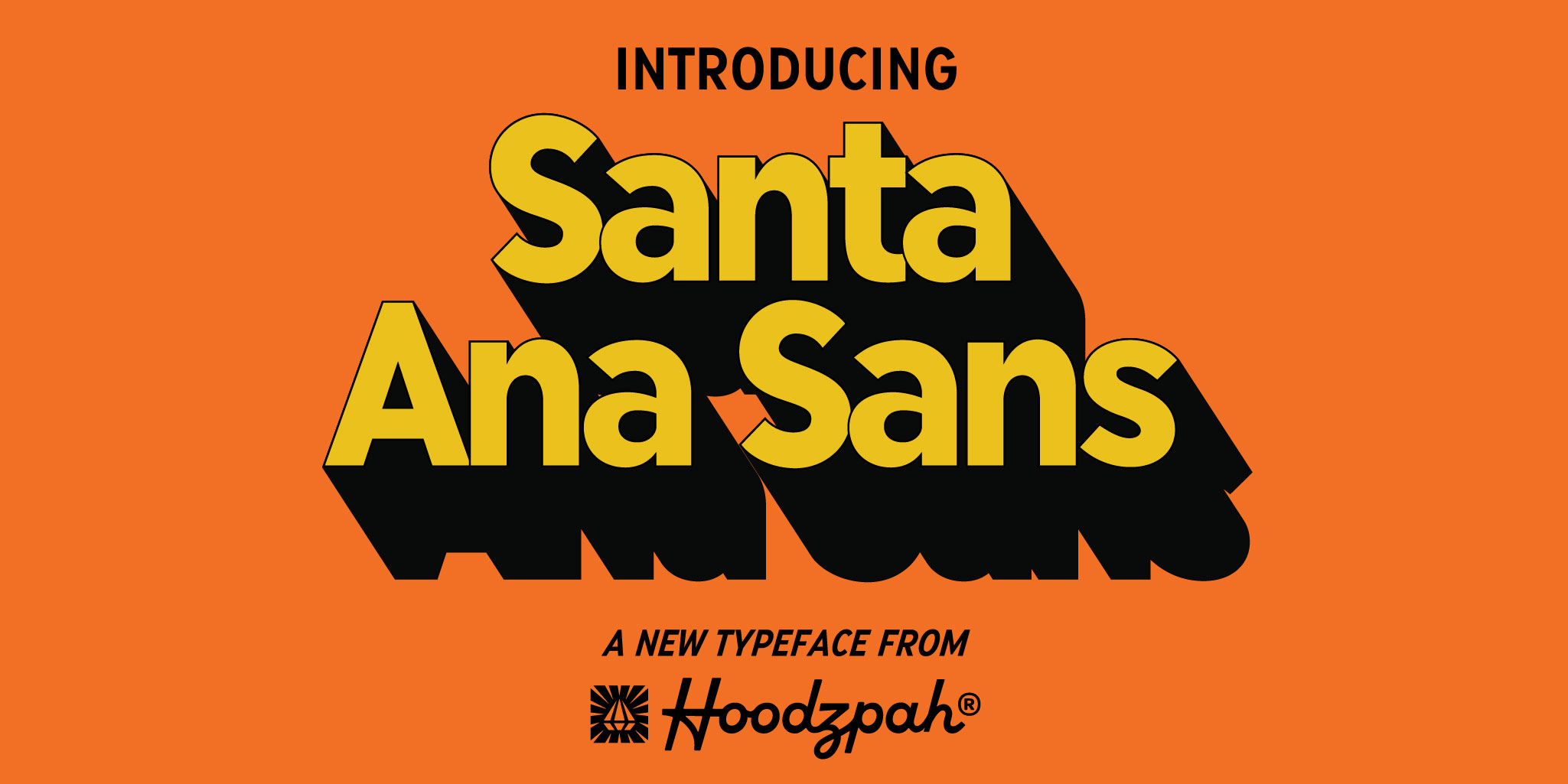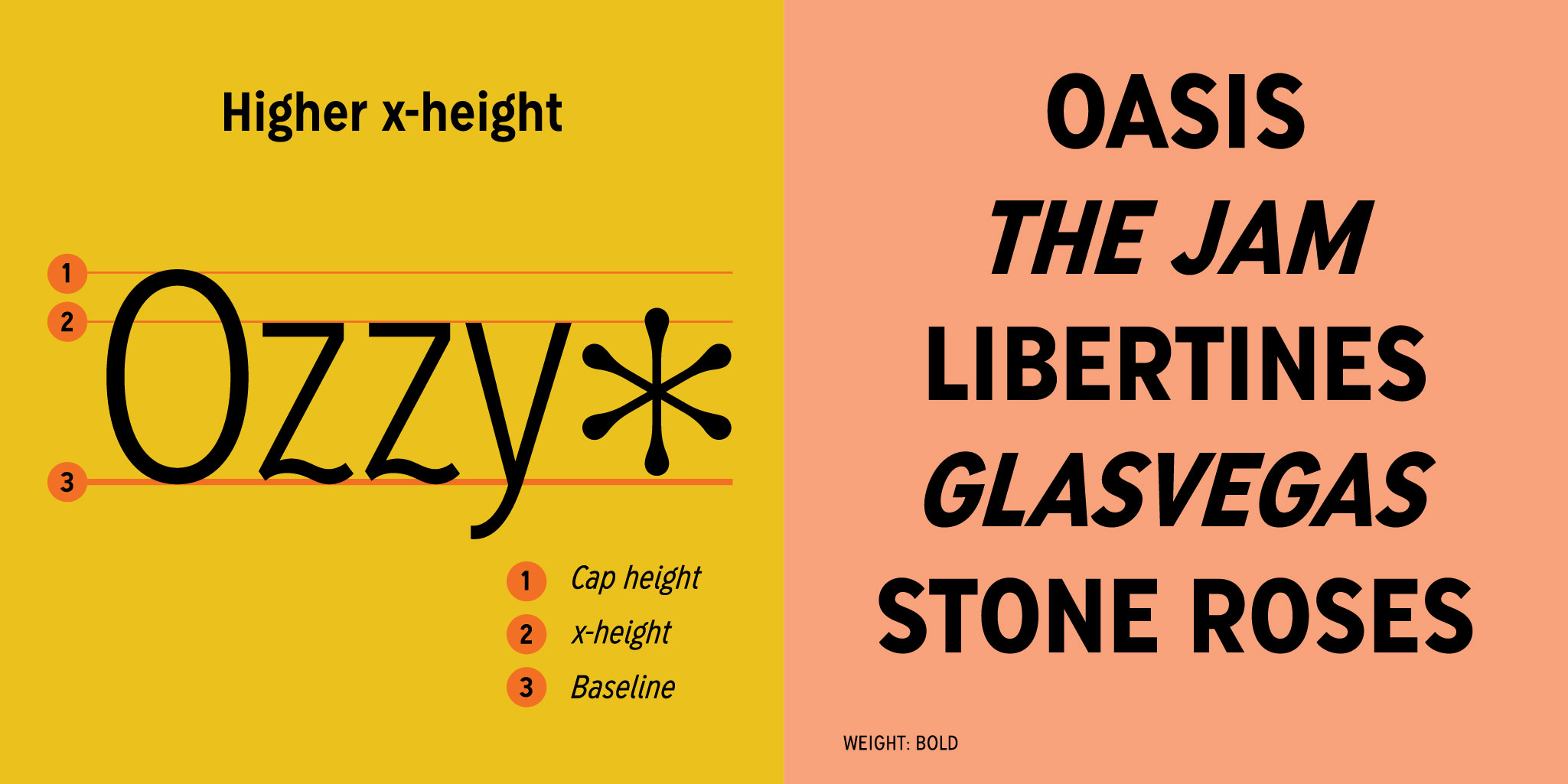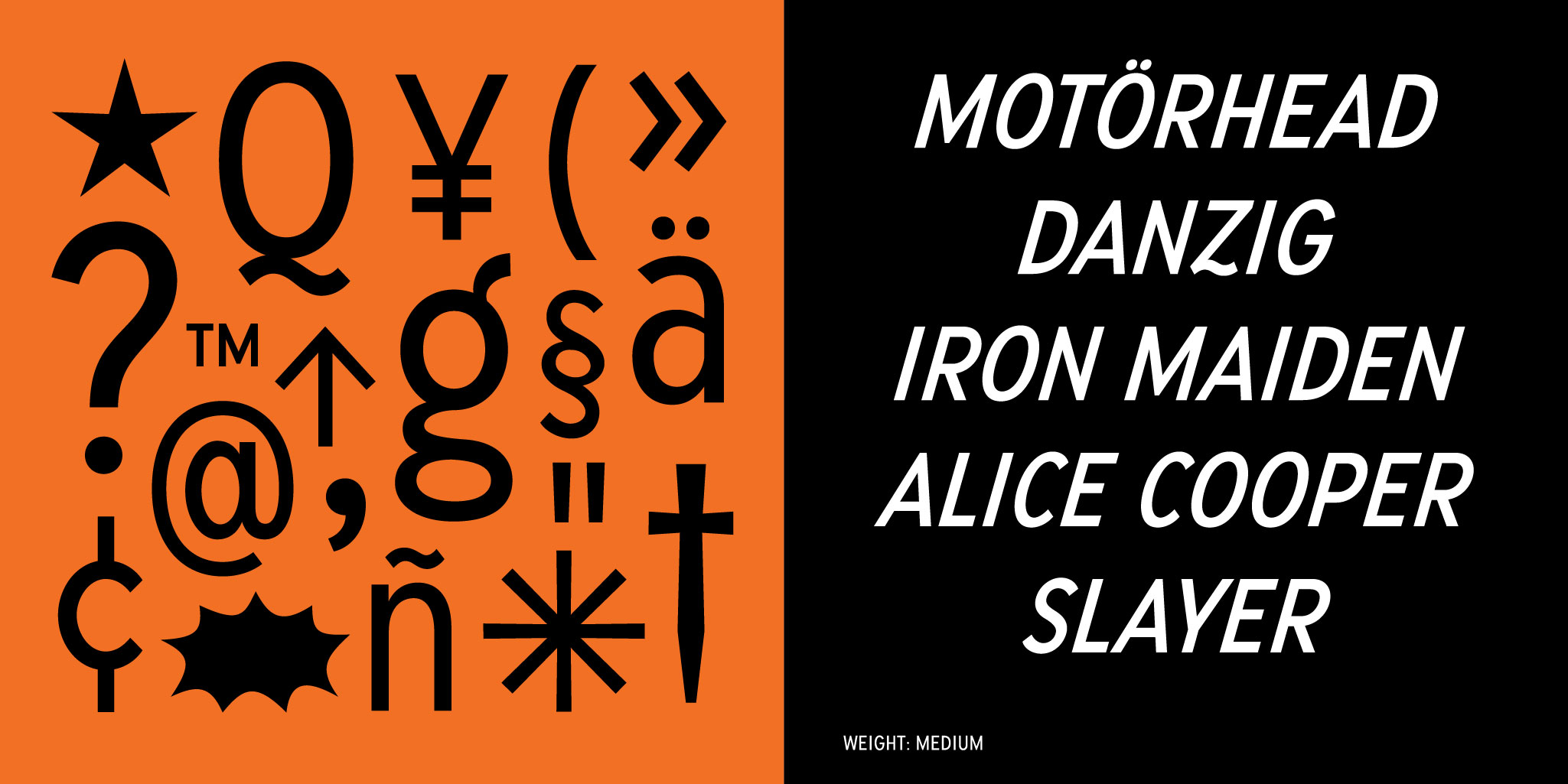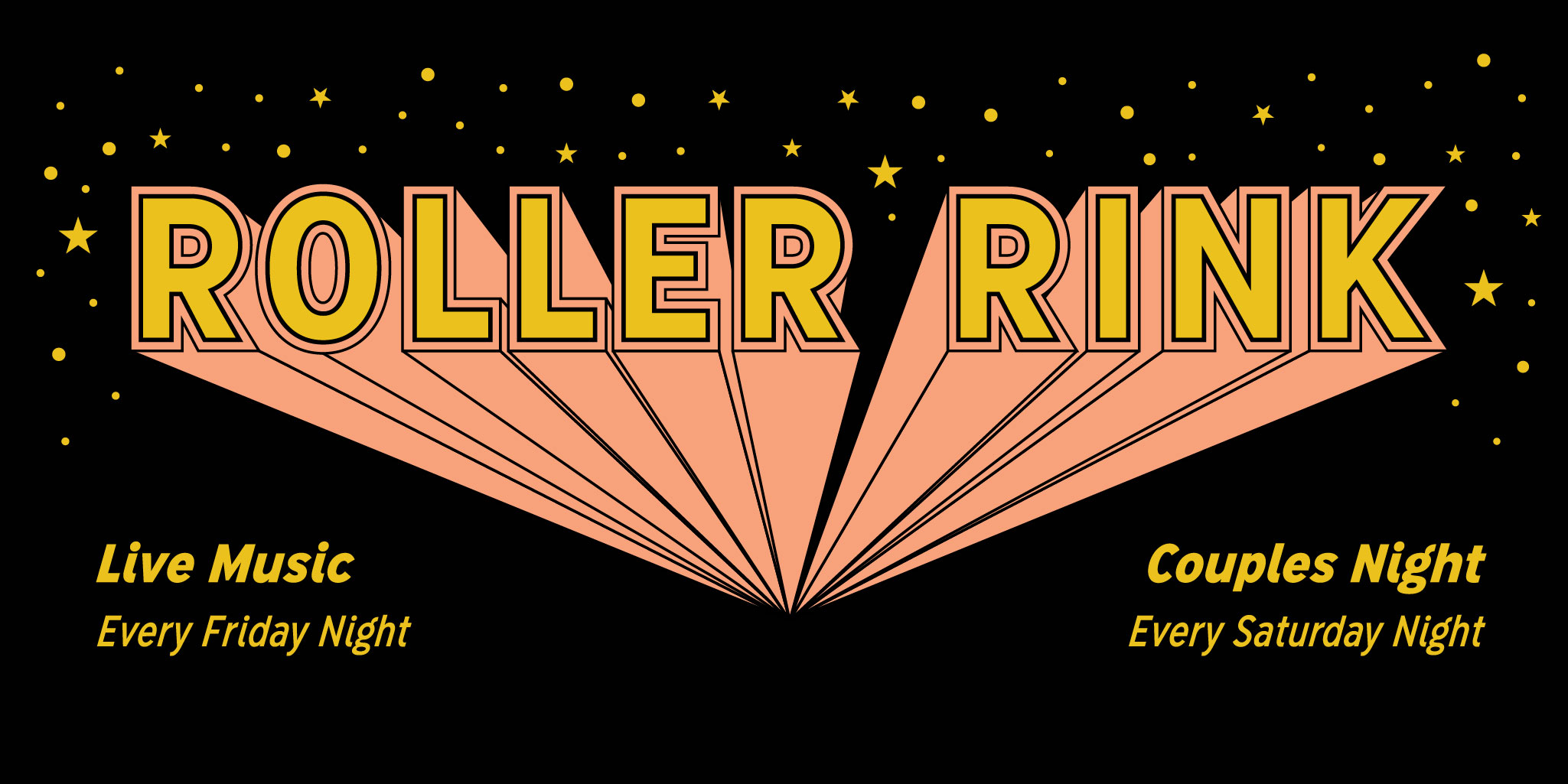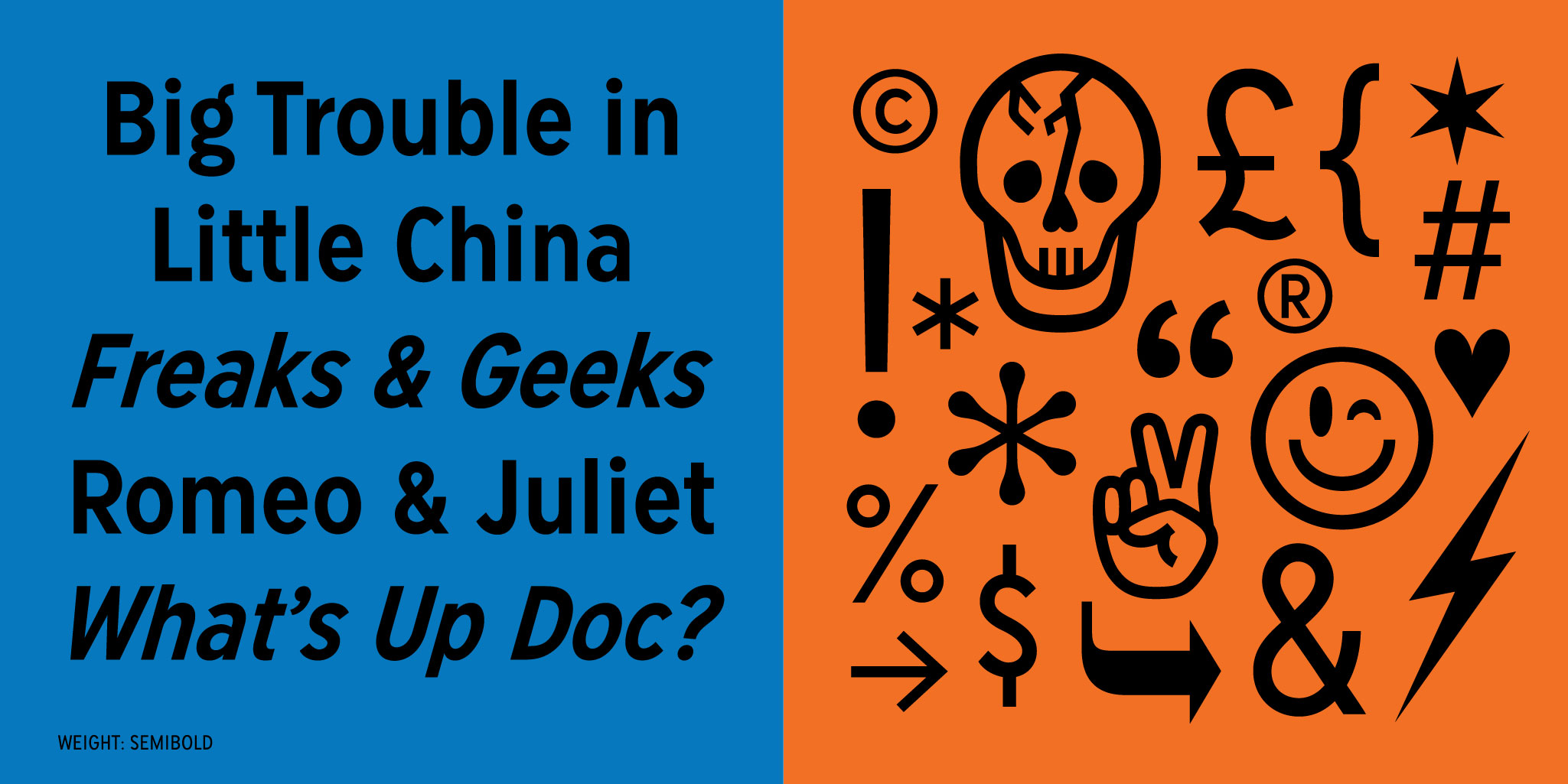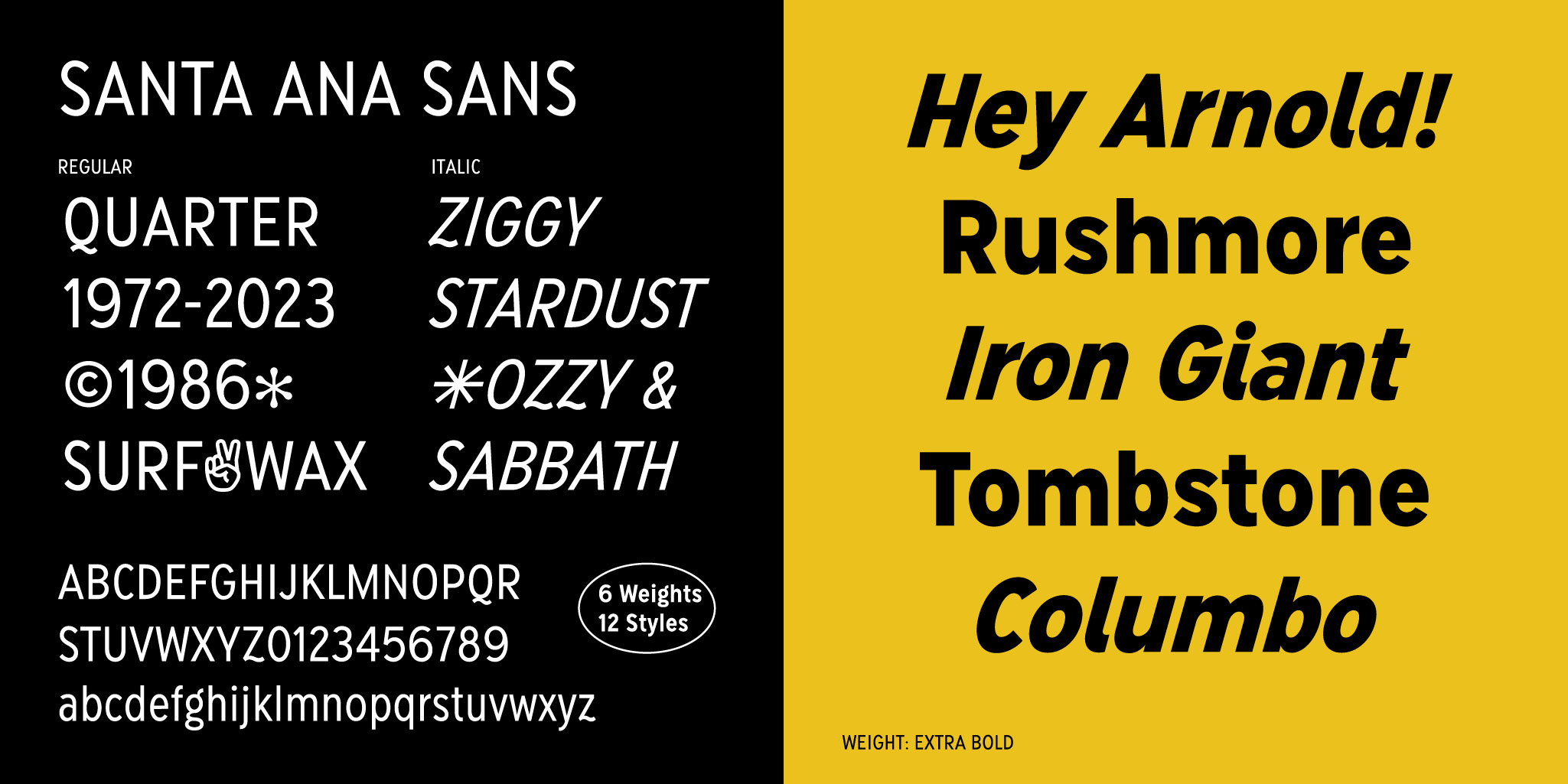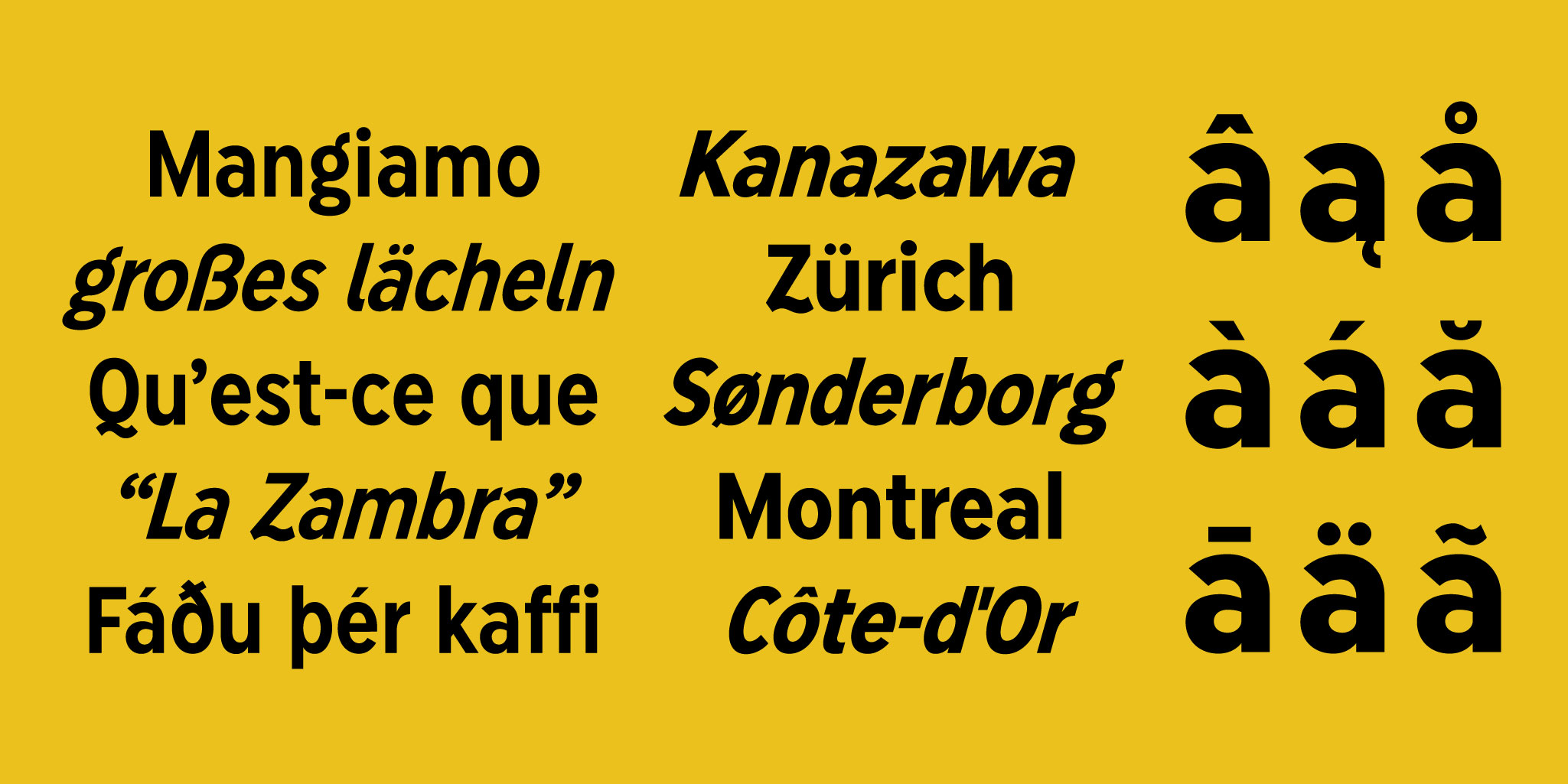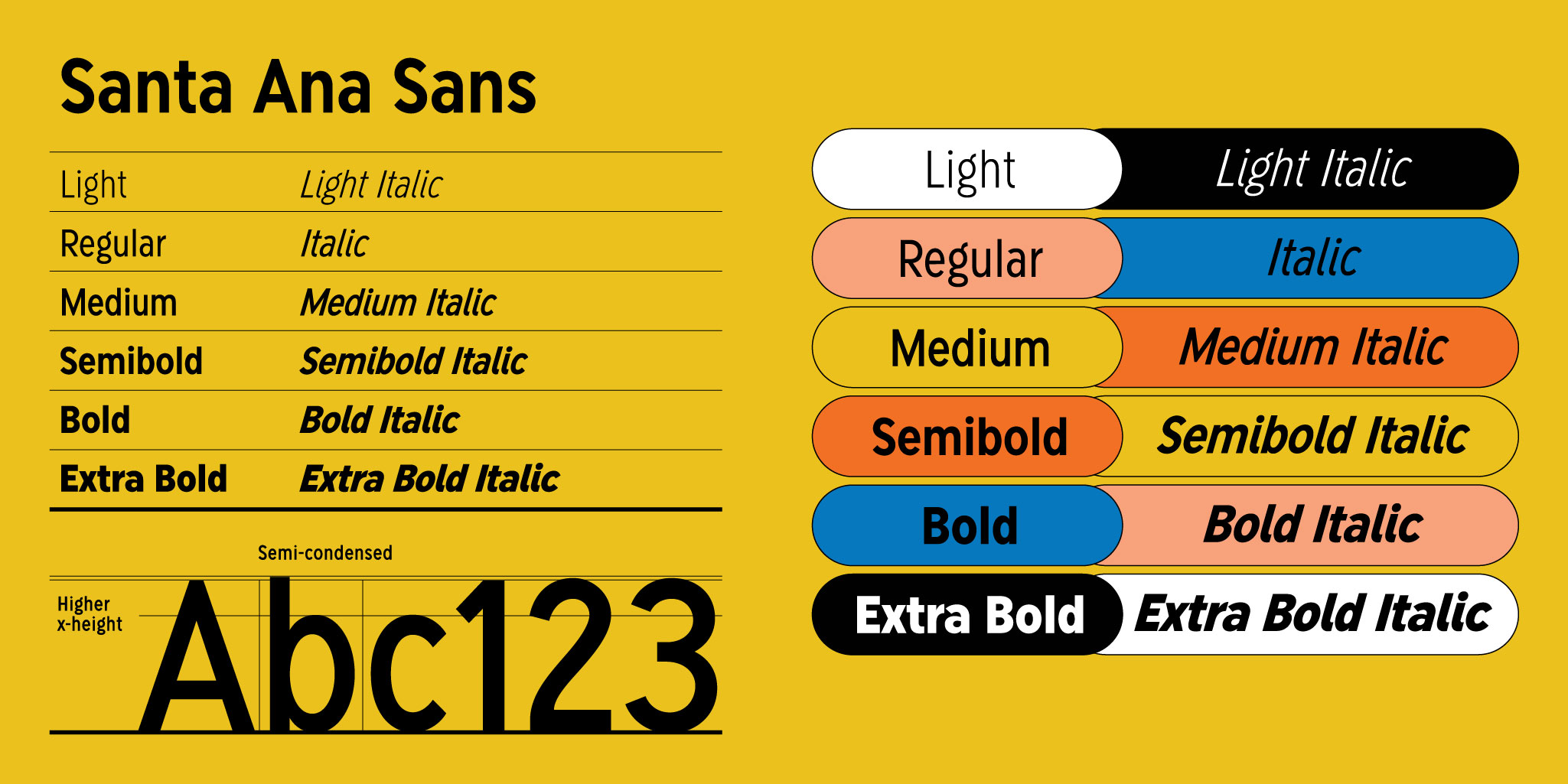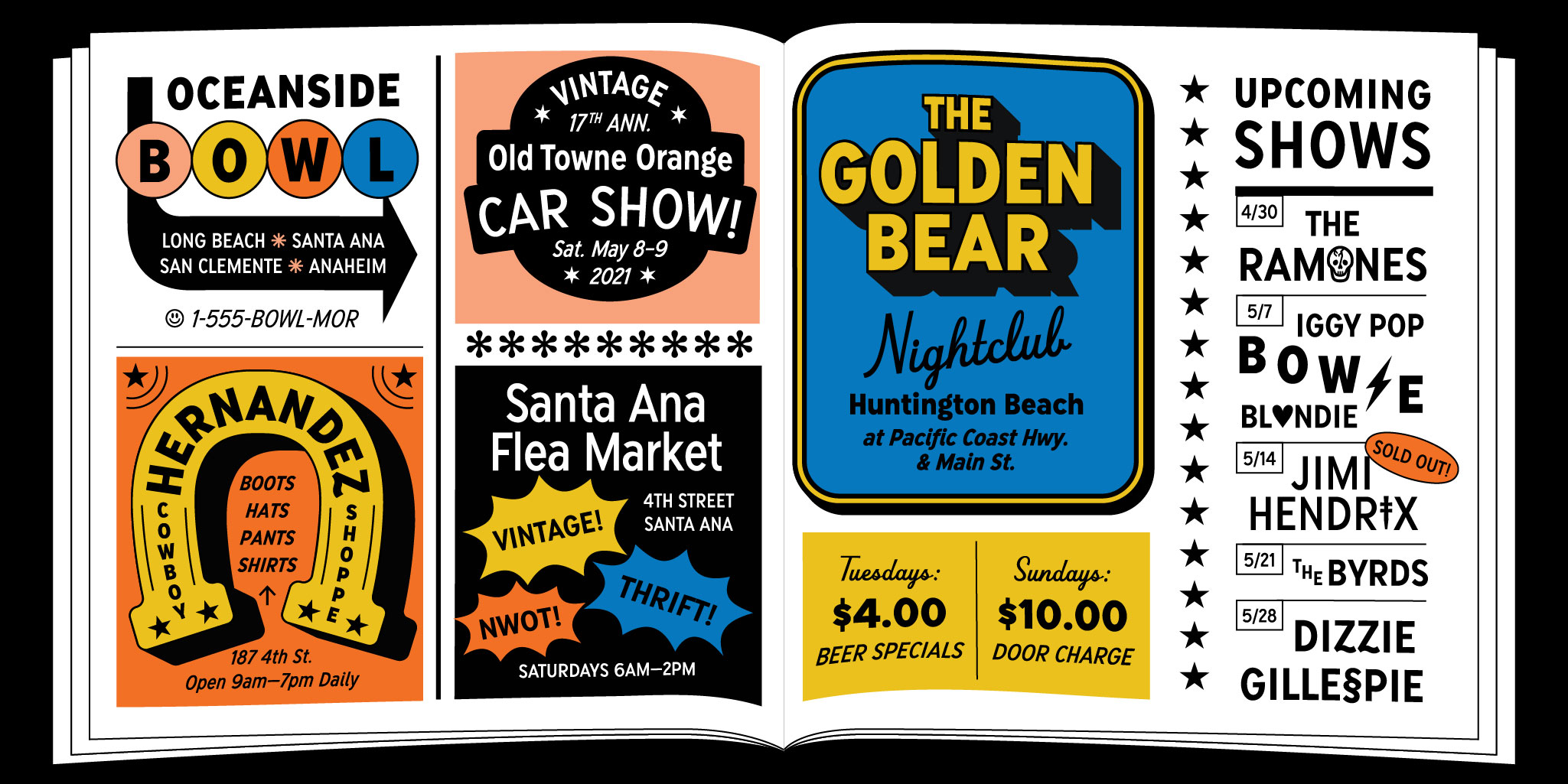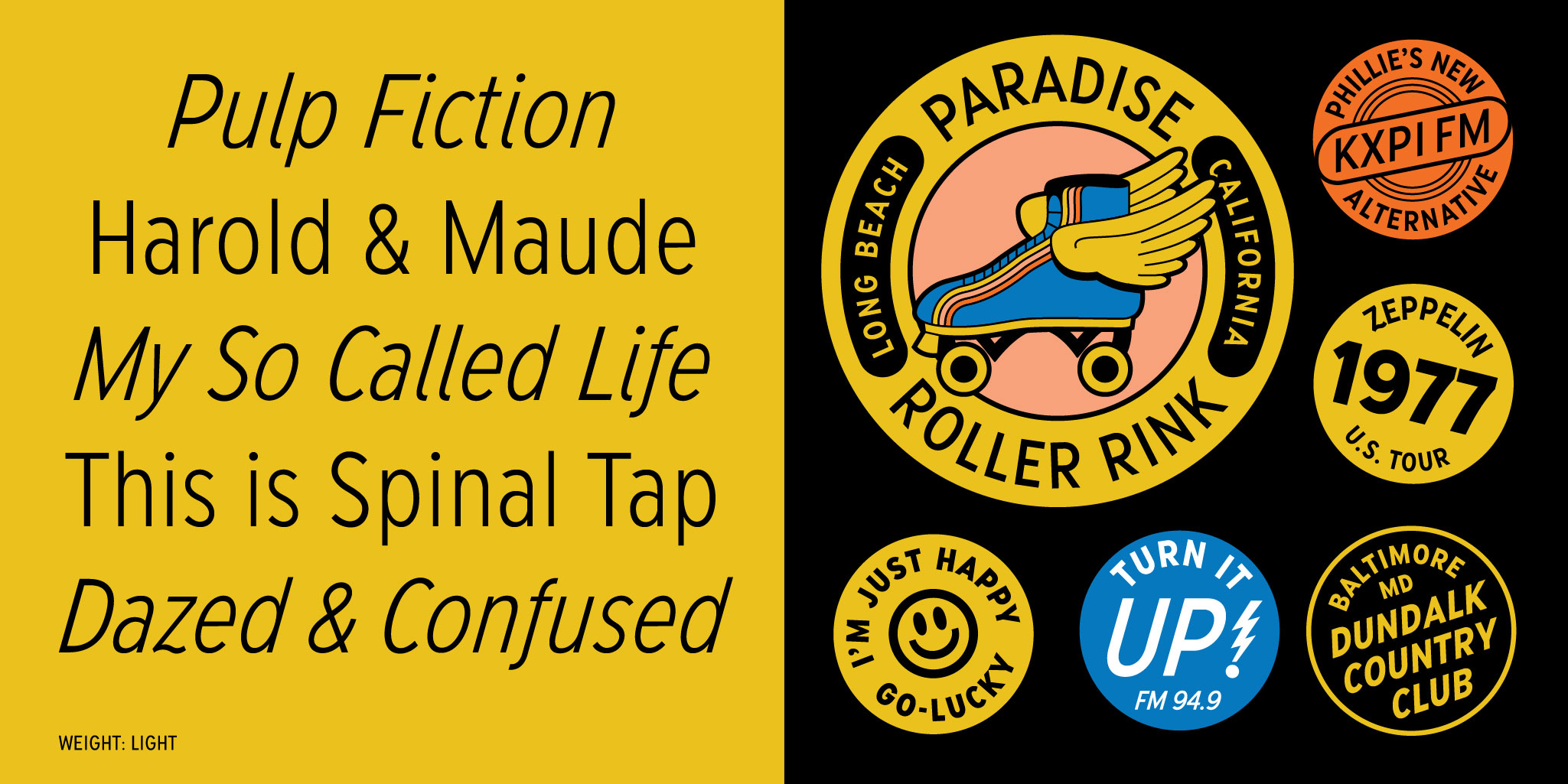
Santa Ana
Sans
A semi condensed pseudo geometric sans with plenty of personality.
Santa Ana Sans is inspired by the perfectly imperfect typography on vintage and retro storefront signage and marquees. This semi-condensed typeface comes in 6 weights plus italics. It’s a workhorse typeface that you can set heavier text in, but don’t get it wrong, it knows how to play just as hard and has enough personality for headline copy, logos, and other display usages. Track it tight, track it wide…versatility is its middle name.